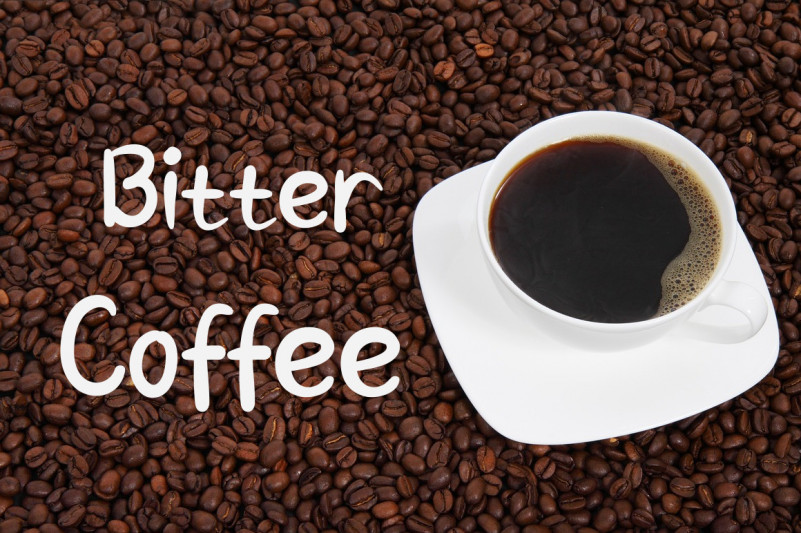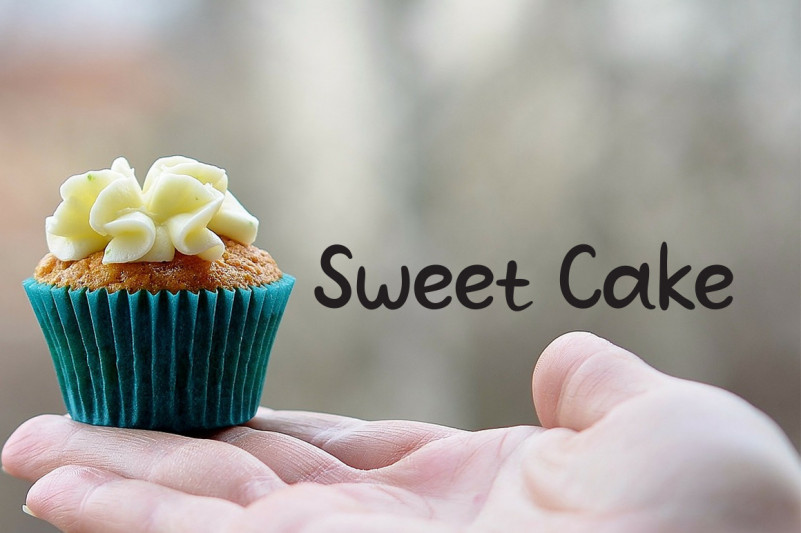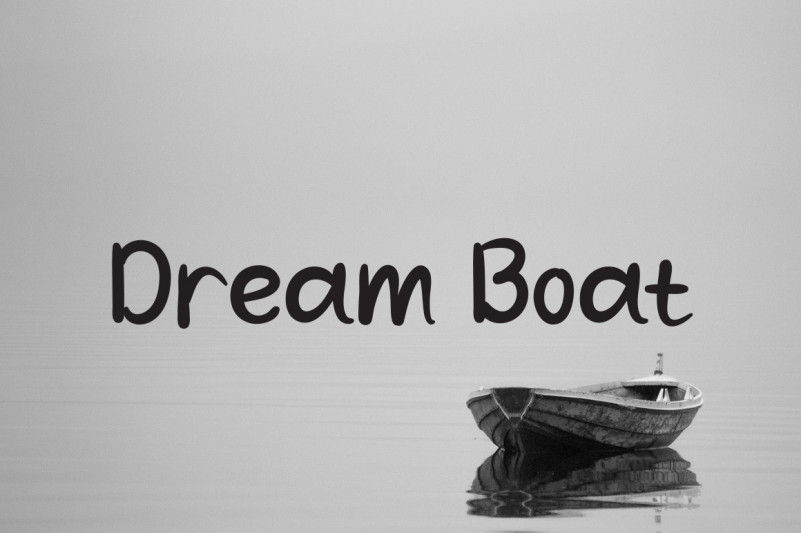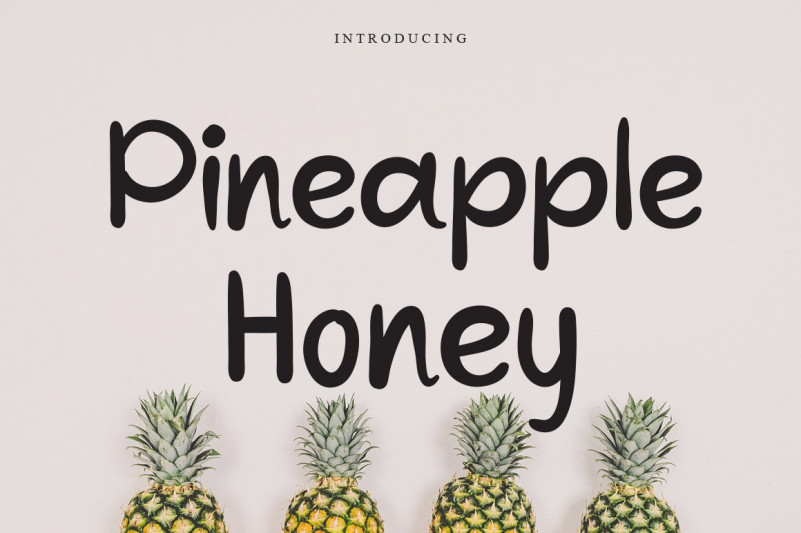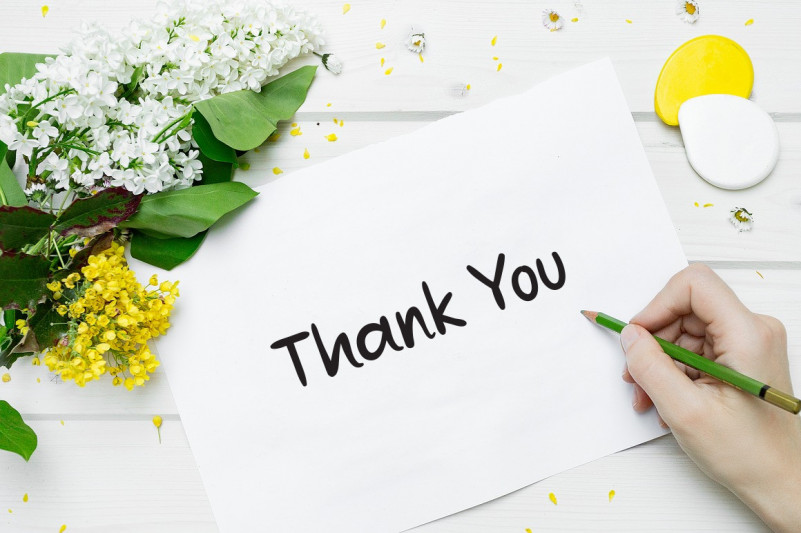
Pineapple Honey Display Font
This is a dainty, thin and cursive handwritten font. This gentle font will look gorgeous on a variety of design ideas. It will add a joyful touch to each of your projects!